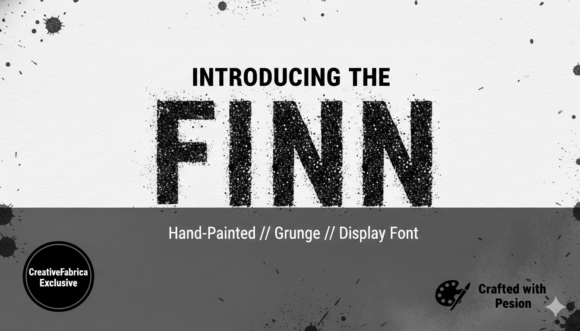
The Urban Edge of FINN Font: A Designer’s New Best Friend
I’ll never forget the project that made me fall in love with the FINN font. I was working on a branding campaign for a local coffee shop, and I needed a font that would capture the gritty, urban vibe of the city. I spent hours scouring the internet for the perfect font, but nothing seemed quite right. That was until I stumbled upon FINN. With its bold, distressed texture and authentic feel, it was like the design gods had finally answered my prayers.
First Impressions: A Bold and Expressive Display Font
FINN is more than just a font – it’s an experience. This all-caps typeface is designed to make a statement, with a unique distressed texture that gives it a hand-painted, gritty aesthetic. Inspired by the urban jungle, FINN brings an authentic, handcrafted feel to your designs. Whether you’re working on headlines, logos, posters, or any project that needs a touch of urban edge, FINN is the perfect choice.
- ✨ Unique distressed texture: FINN’s texture is unlike anything I’ve seen before. It adds a level of depth and character to your designs that’s hard to replicate with other fonts.
- ✅ Bold and expressive: FINN is a statement font, plain and simple. It’s perfect for making a bold impression and grabbing the viewer’s attention.
- 💯 Authentic feel: FINN’s handcrafted aesthetic makes it feel like a bespoke font, perfect for designers who want to add a touch of personality to their work.
Small Quirks and Limitations:
While FINN is an amazing font, it’s not without its quirks. For example, ⚠️ the distressed texture can be a bit overwhelming if you’re not careful. Use it sparingly, and make sure it fits with your overall design aesthetic. Additionally, 🤔 the font can be a bit tricky to read at smaller sizes, so be sure to test it out before committing to a specific size.
The Story Behind FINN: Designer Inspiration
FINN was inspired by the urban jungle – the gritty streets, the hand-painted signs, and the rough-around-the-edges aesthetic. The designer wanted to create a font that would capture the essence of the city, with all its imperfections and quirks. The result is a font that’s bold, expressive, and unafraid to take risks.
| Font Name | Finn Font |
| Author | pavel |
Q: What is FINN font best used for?
A: FINN is perfect for headlines, logos, posters, and any project that needs a touch of urban edge.
Q: Is FINN a difficult font to read?
A: FINN can be a bit tricky to read at smaller sizes, but it’s designed to be bold and expressive. Use it sparingly, and make sure it fits with your overall design aesthetic.